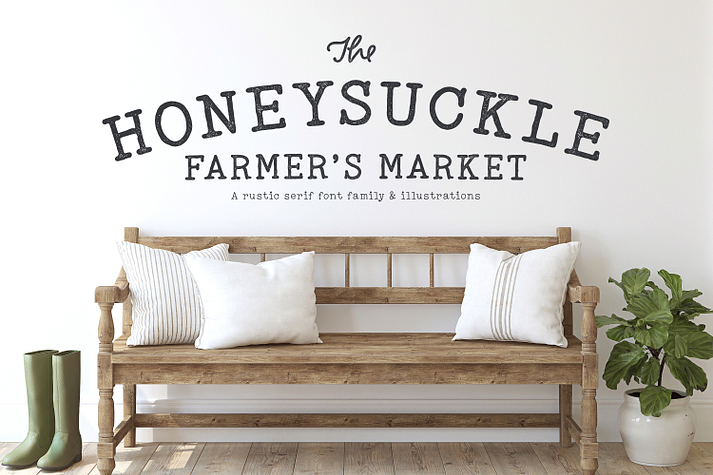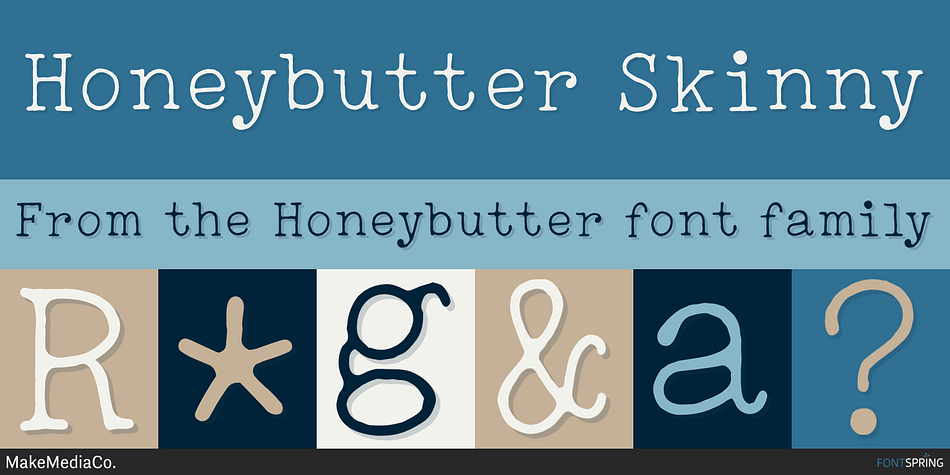
Honeybutter Skinny
Honeybutter is a serif, slab serif and typewriter font family. This typeface has four styles and was published by MakeMediaCo.
I’m a total country girl at heart, and I just love all things FARMHOUSE! ???????????????? So, I figured it was time for another round of country charm. Presenting Honeysuckle Market - a classic, typewriter font in 3 weights, including a textured version, plus 55 hand-drawn vectors, and 15 full-color country garden icons (with 10 additional MYSTERY BONUS icons).
Combine the graphics and fonts to create super cute farmhouse logos, branding, stationary, tumblers, signage, gift tags, apparel, pillows, mugs and so much more!
• Honeysuckle Market Regular (OTF) - A trendy, classic typewriter font built for legibility and streamlined typography.
• Honeysuckle Market Skinny (OTF) - A thin version for delicate designs. This type looks lovely on signage and quotes.
• Honeysuckle Market Bold (OTF) - A weighted version for more dramatic lettering.
• Honeysuckle Market Bold Grit (OTF) - A textured version for a rustic flair.